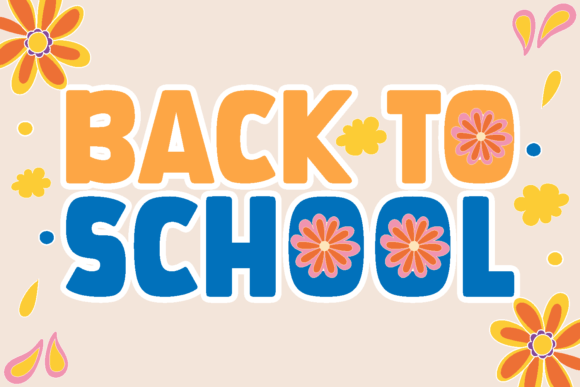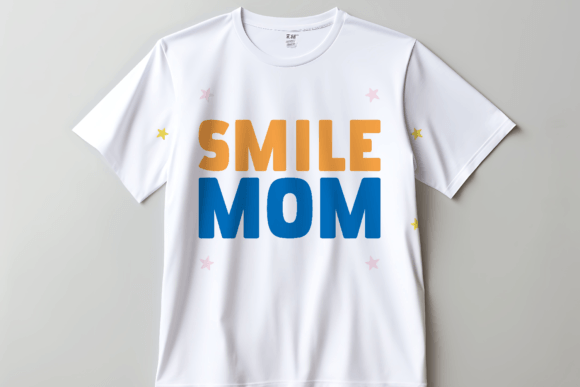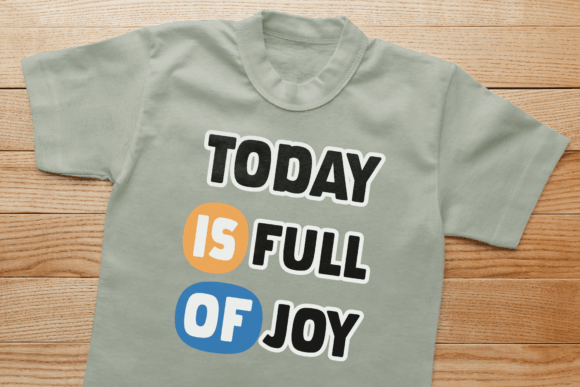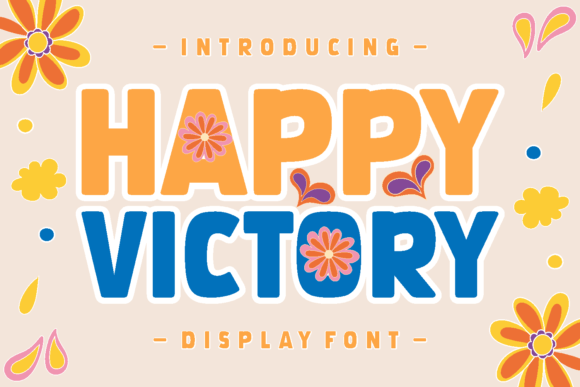
Introduction to Happy Victory Font
Introducing your new favorite in typography – the Happy Victory display font.
Perfectly capturing the spirit of the 70’s, 80’s, and 90’s, it pledges an elegant fusion of retro-modern aesthetics to your graphic designs With a whimsical touch, this font sparks creativity with a dash of fun, making it perfect for Boys, Girls, and Girl Powers.
Why Choose Happy Victory Font?
Happy Victory Font offers exceptional quality and versatility, making it a valuable addition to your design toolkit. Whether you’re creating for personal projects or commercial use, Happy Victory Font delivers professional results.